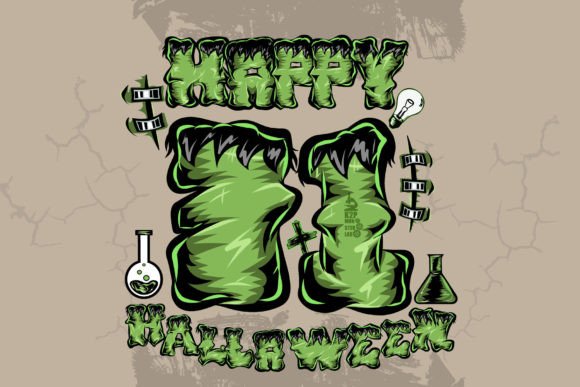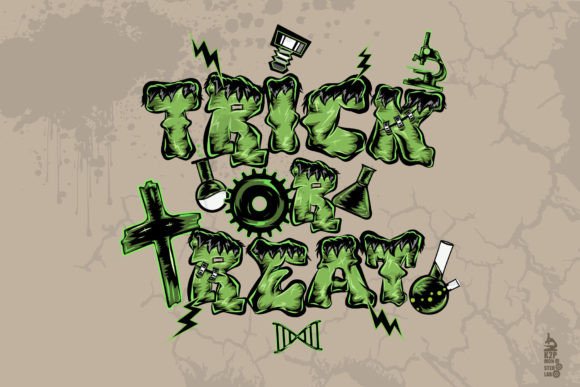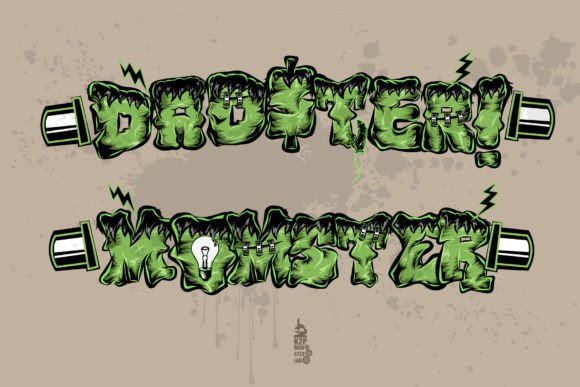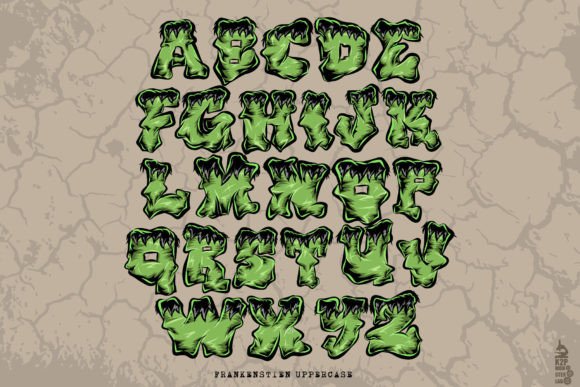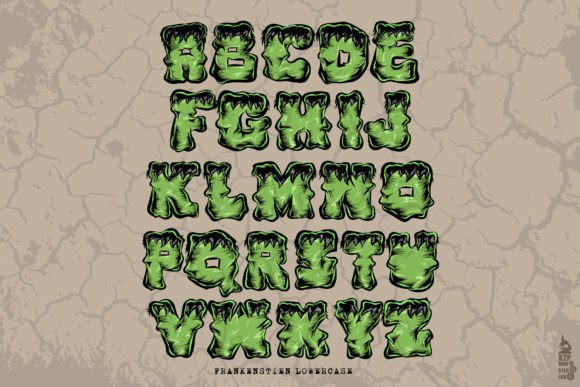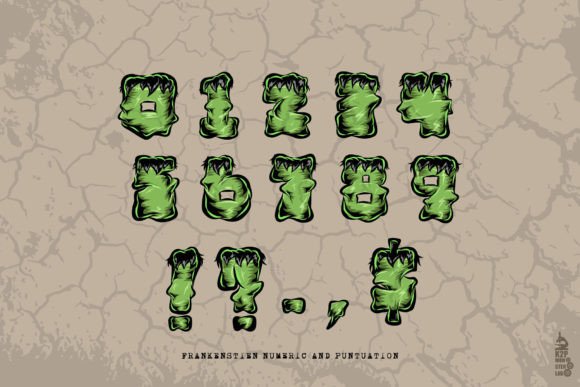
The Ultimate Guide to Frank Color Font: A Spooky-ooky Design Delight
I’ll never forget the time I was working on a Halloween-themed project for a client, and I just couldn’t find the perfect font to capture the spooky-ooky vibe. The client wanted something that would make their poster stand out, but I was stuck in a design rut. That’s when I stumbled upon Frank Color font, and it was love at first sight! 💕 In this article, I’ll share my experience with this amazing font, its features, and how to make the most of it in various design platforms.
An Honest Review of Frank Color Font
What I Love About Frank Color Font ✨
- 🎃 It’s a unique, Halloween-themed font that’s perfect for creating spooky-ooky designs.
- 🌈 The color version is incredibly vibrant and adds an extra layer of fun to any design.
- 📚 It’s incredibly versatile and can be used for various projects, from posters and flyers to book and movie covers.
- 👍 The font is well-designed, with intricate details that make it stand out.
While Frank Color font is an amazing design asset, there are a few things to keep in mind:
The Backstory of Frank Color Font
Frank Color font was designed with one goal in mind: to create a unique, Halloween-themed font that’s both fun and spooky. The designer wanted to create a font that would capture the essence of Halloween, with its vibrant colors and intricate details. The result is a font that’s perfect for designers, crafters, and creative hobbyists who want to add a touch of spooky-ooky fun to their designs.
| What kind of projects can I use Frank Color font for? | Frank Color font is perfect for Halloween-related projects, posters, school designs, flyers, book and movie covers, and more! |